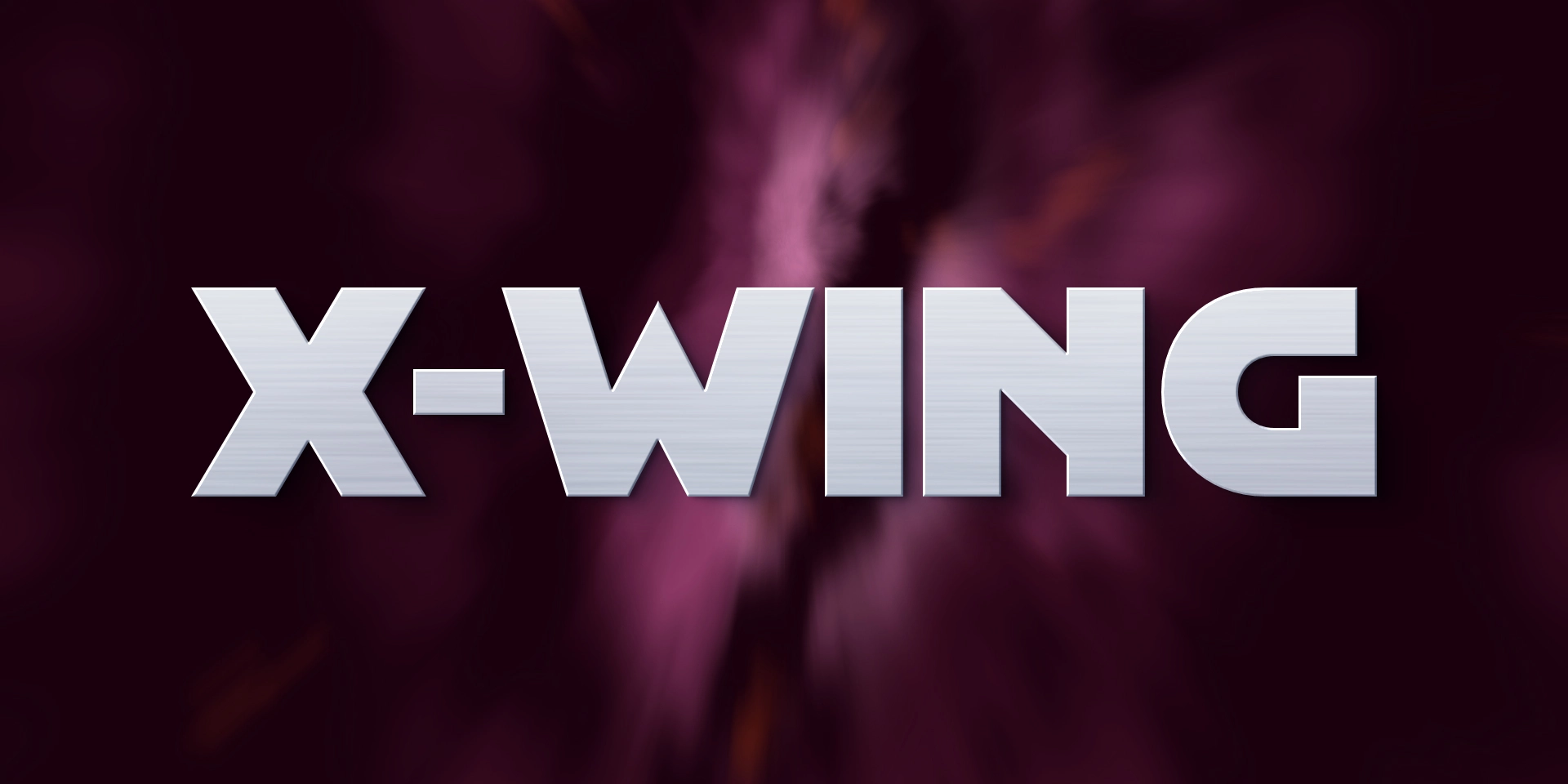
§09 Director’s Cut
Over the years, sliced B, D, and P characters have been used without ligatures that necessitated that style. These standalone characters might be useful.
Womprat enables these alternate characters—plus an ampersand—automatically when selecting this OpenType feature.
These same attributes are extended to Greek—
…Cyrillic—
…and accented Latin.
To ensure ligatures aren’t formed with these letters, disable Standard Ligatures.